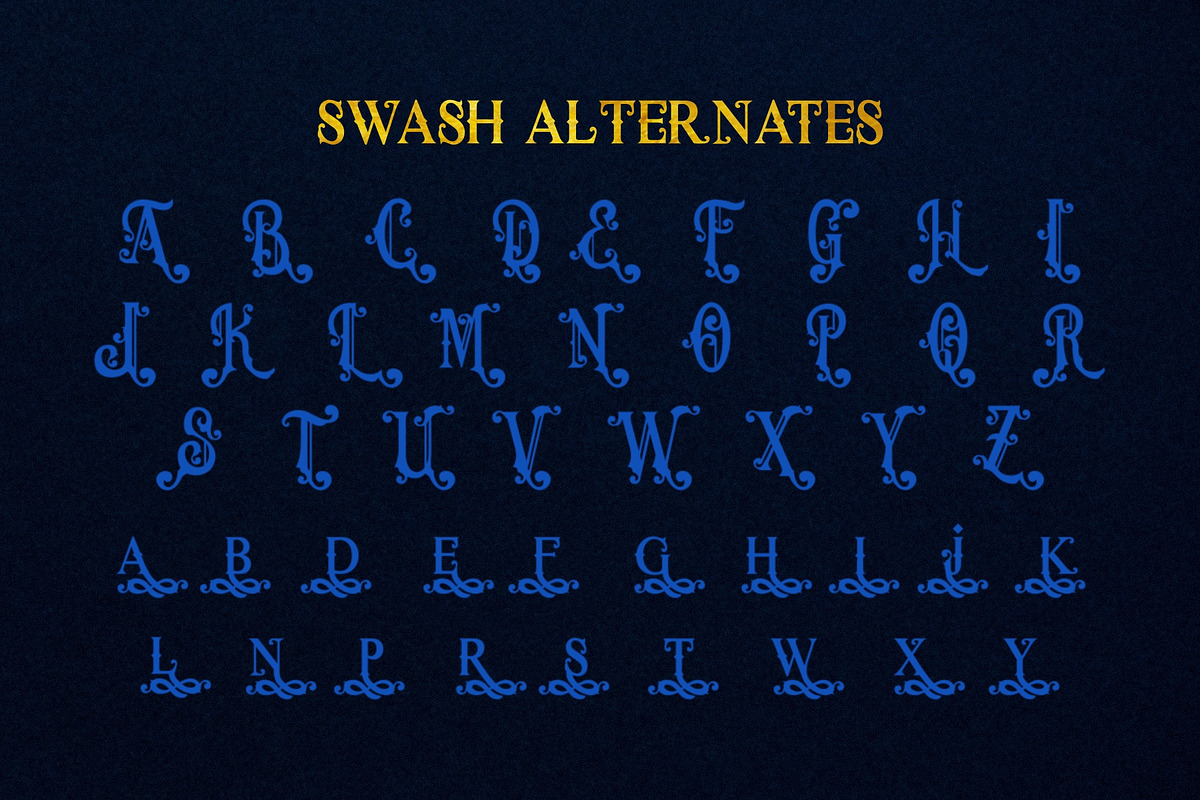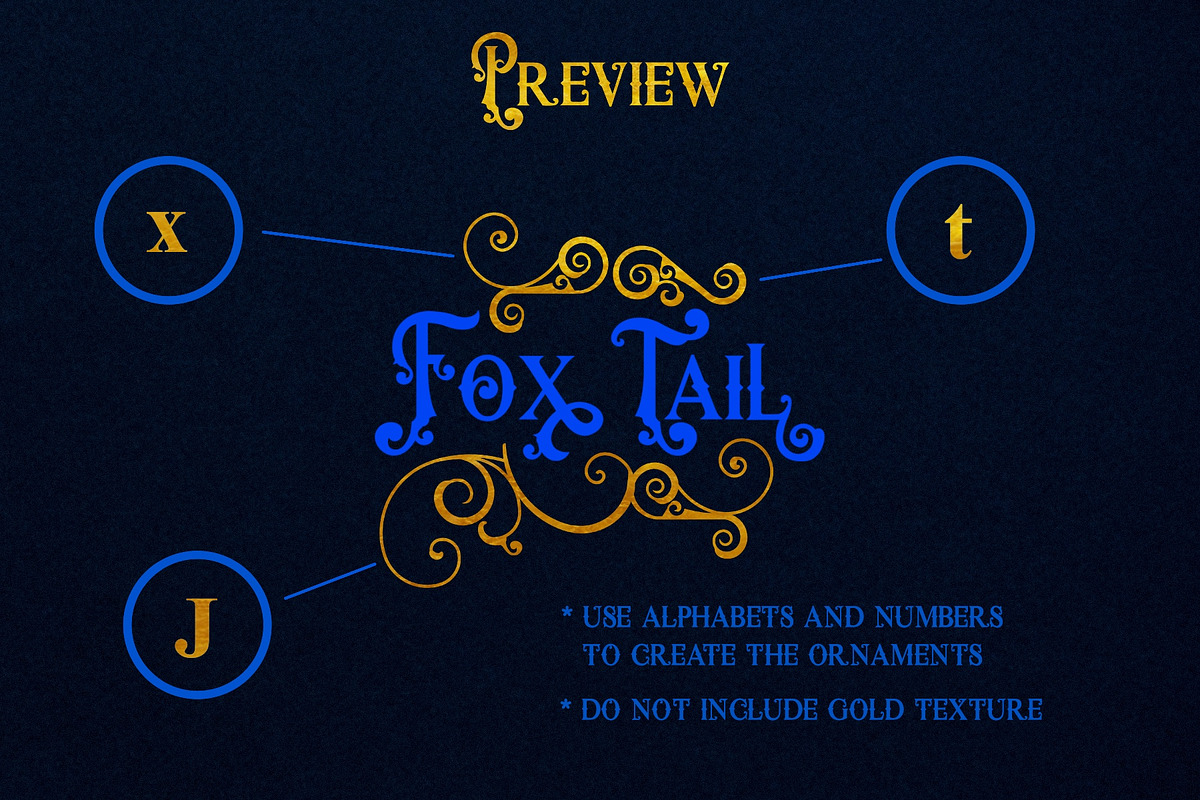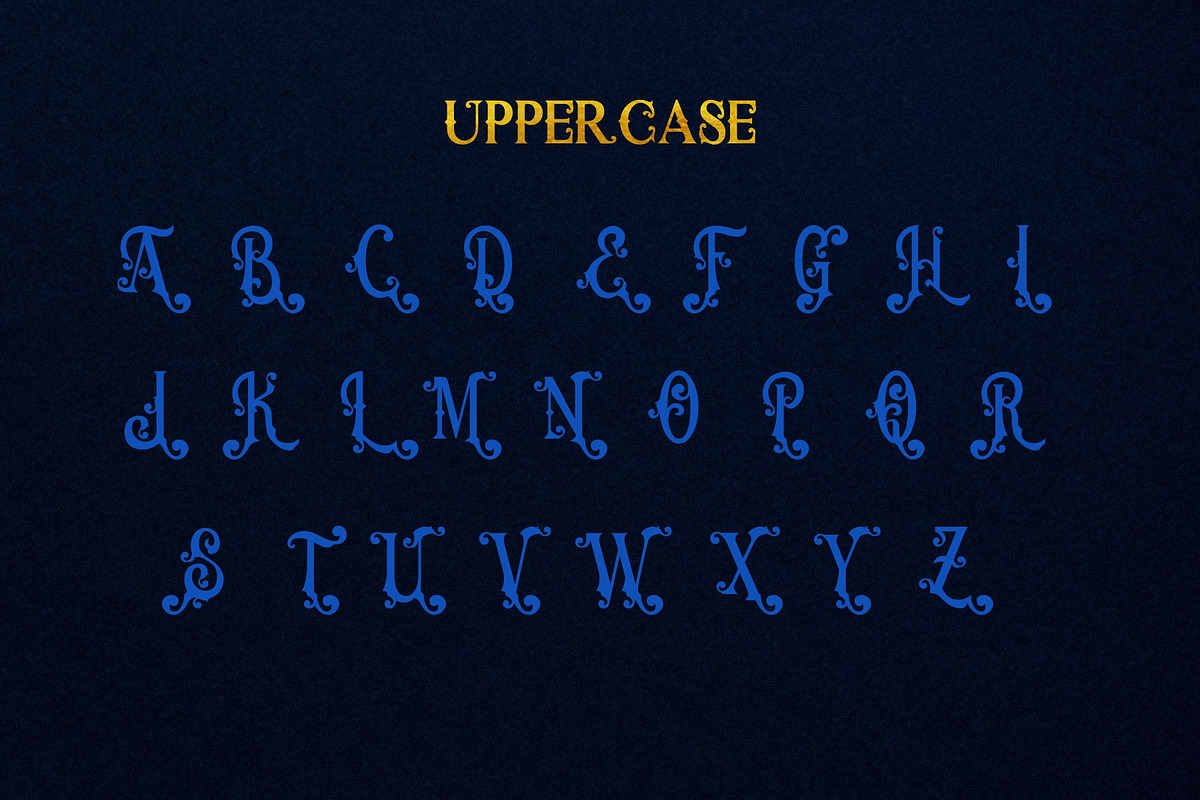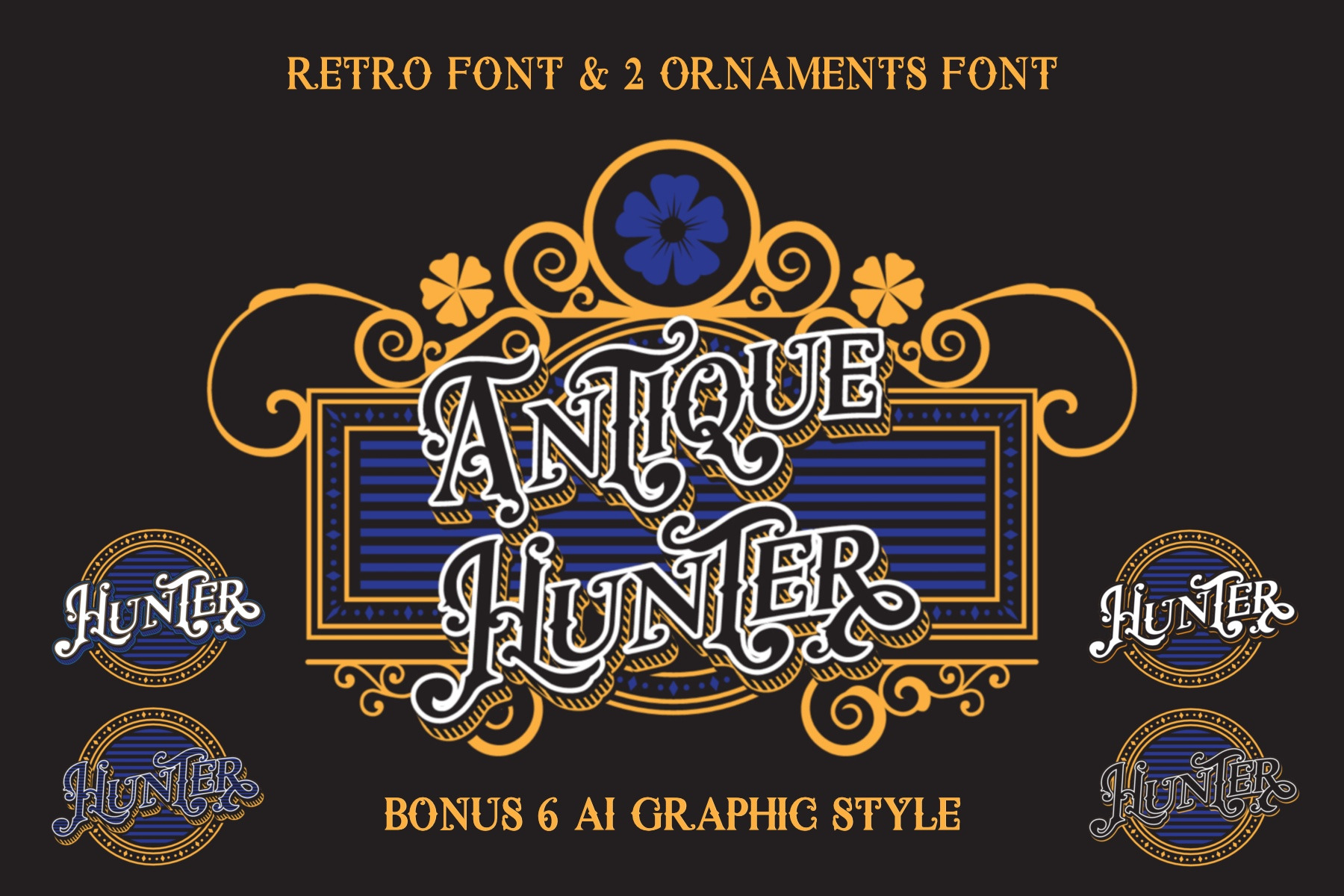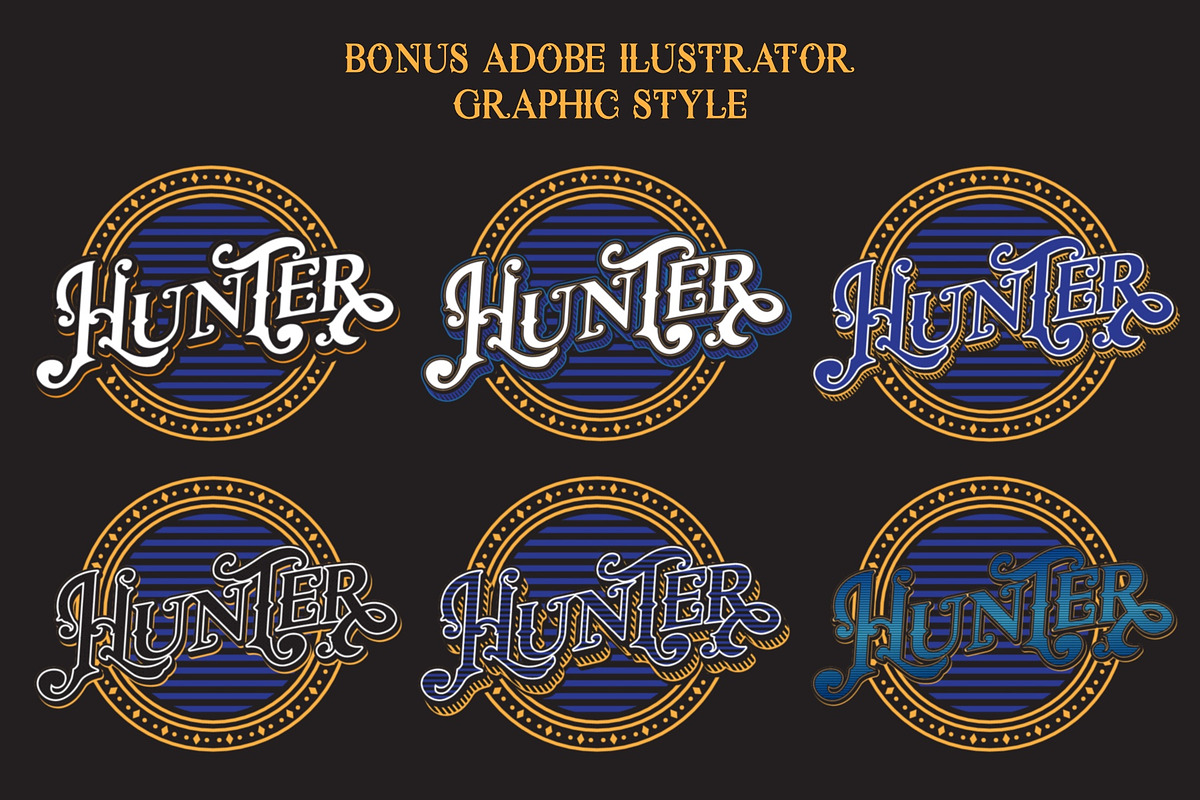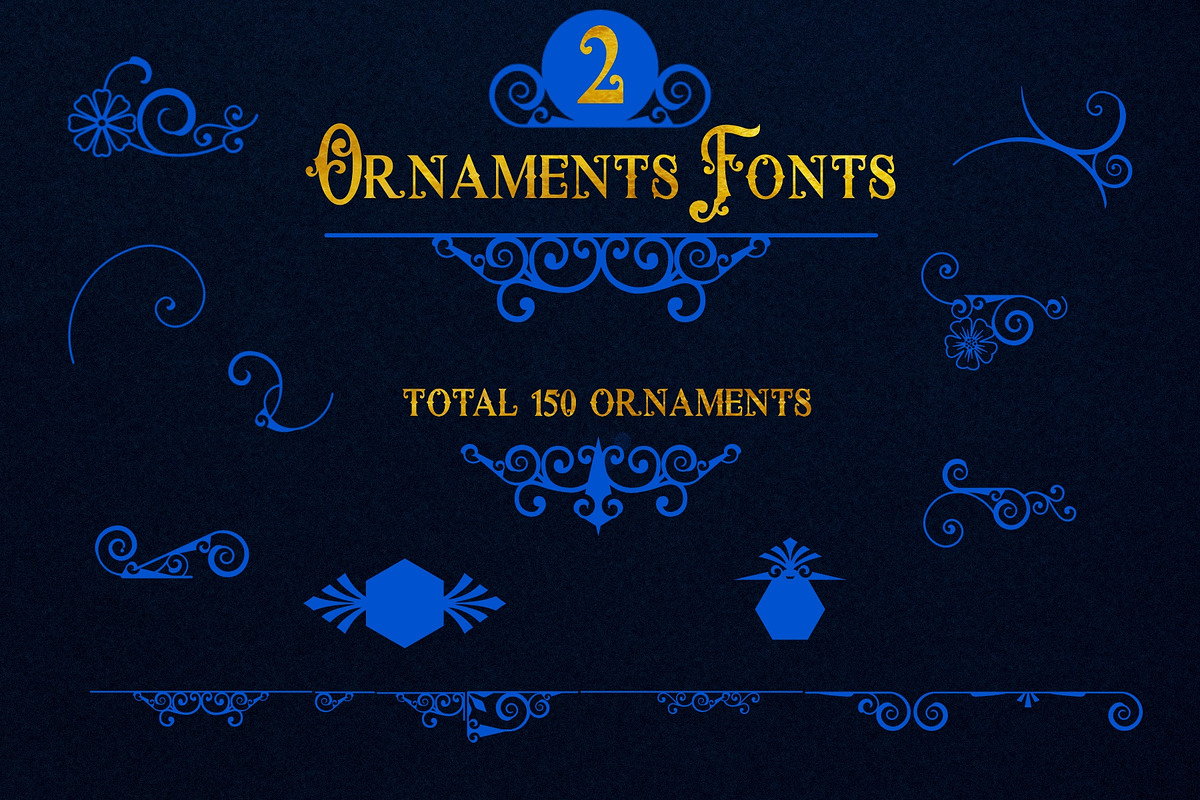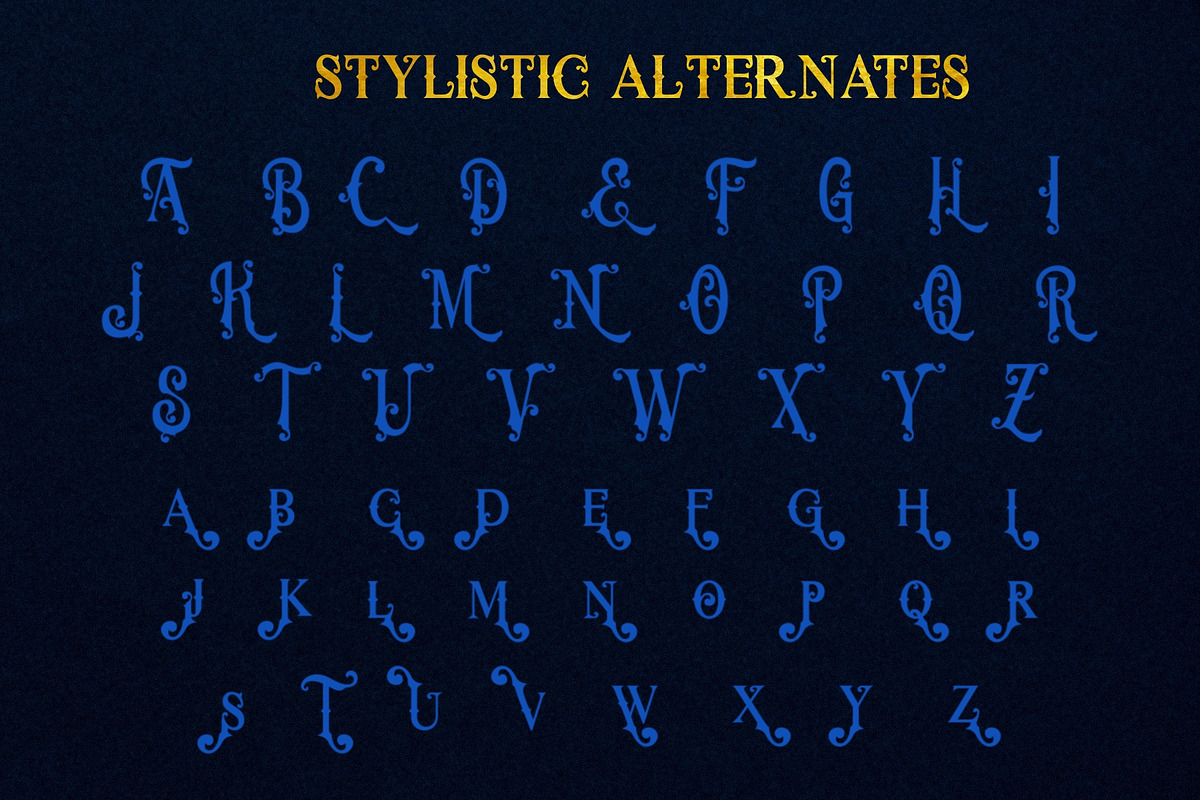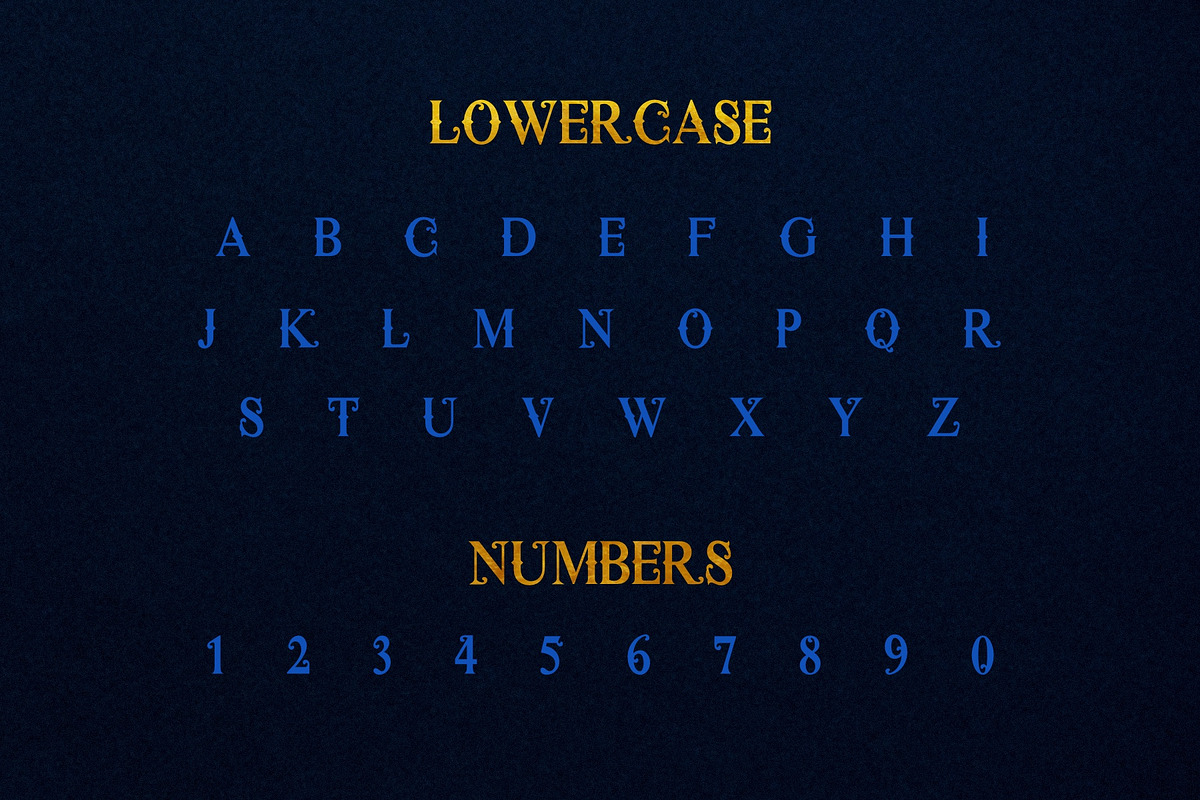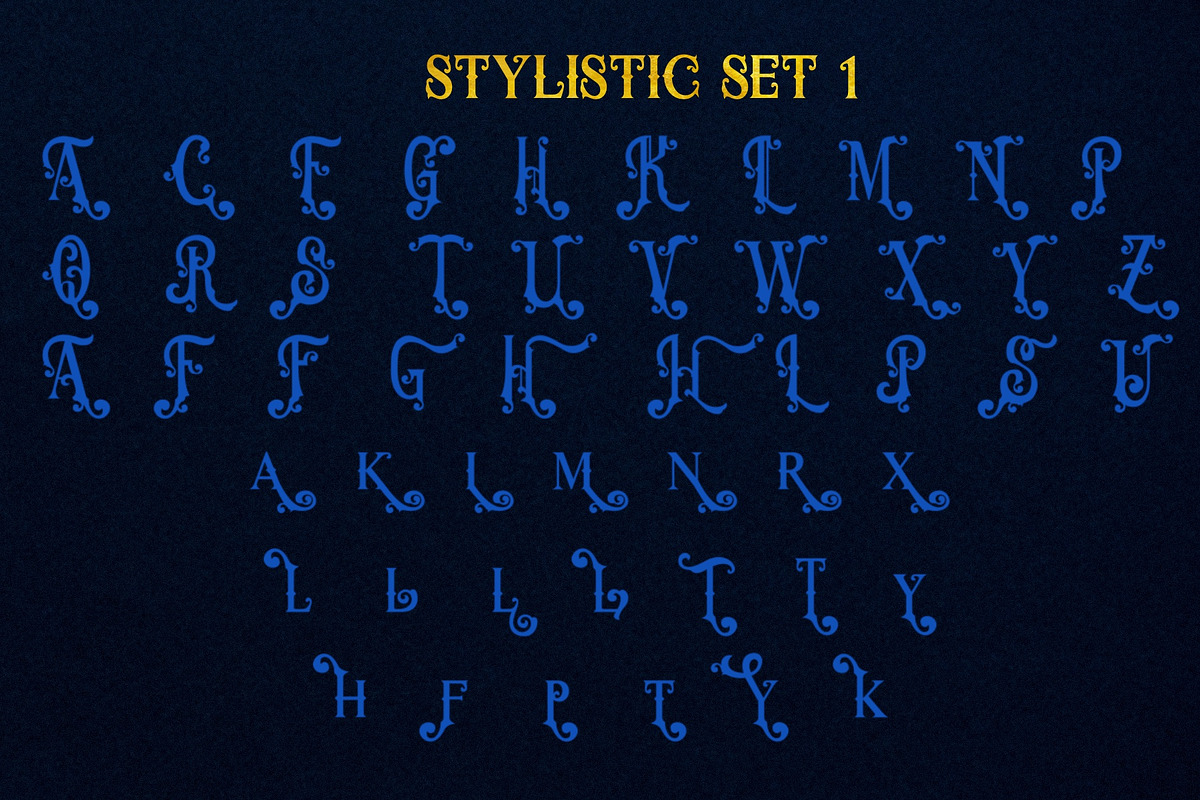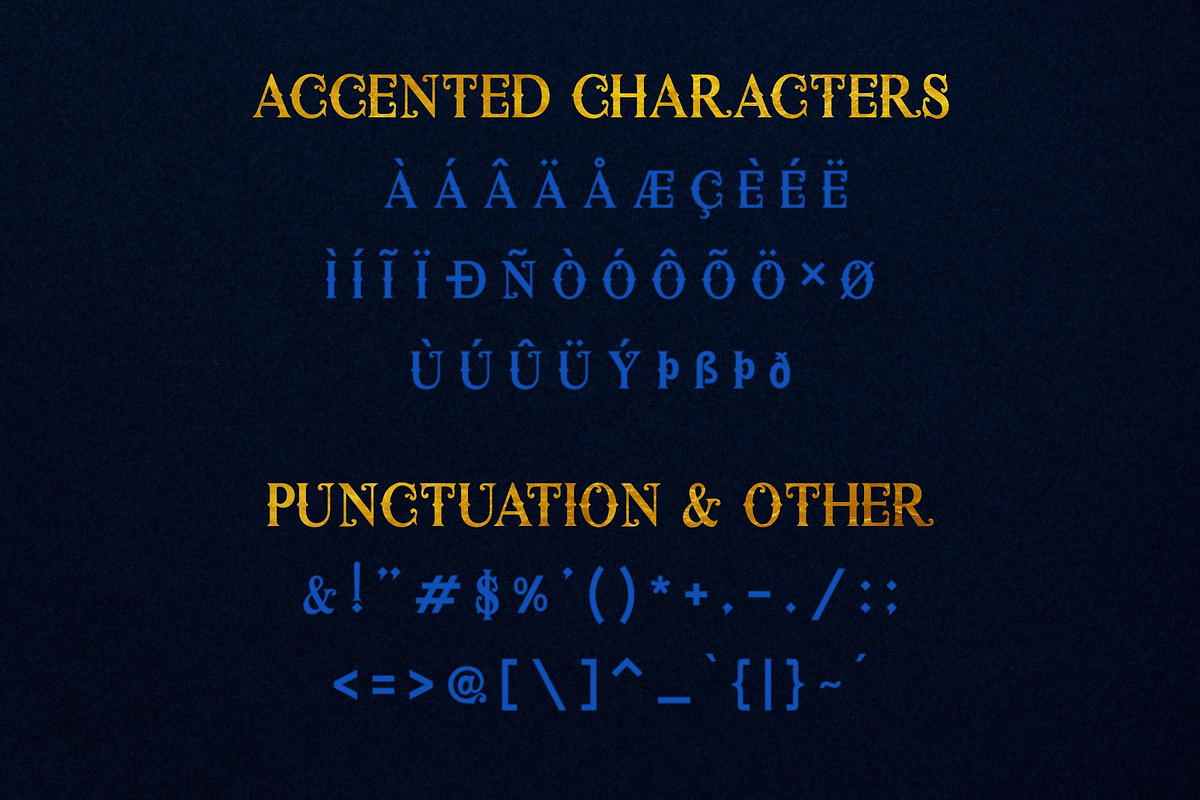
Antique Hunter and Ornaments fonts
UPDATE 19/11/21 Bonus Adobe Illustrator GRAPHIC STYLE + AI Examples files (created using AI 2014) Antique Hunter is a font inspired by antique vintage sign and lettering. The font comes with unique uppercase letters , accented characters, swash, stylistic alternate, stylistic set to give your designs an antique and elegant look. This product also includes 2 Vectorheroes ornaments fonts. With total nearly 150 characters, ready to use simply by typing alphabets, numbers and some punctuation. Both are vector font, you can resize as big as you like. By combining this 3 fonts you can create Victorian Retro logo , Headlines, and packaging title design.
KEY FEATURES
- Character set A-Z with unique uppercase letters
- Numbers & Punctuations
- Swash Alternate
- Stylistic Set 1
- Stylistic Set 2
- 2 Ornaments Fonts (to use type alphabets, numbers and some punctuation)